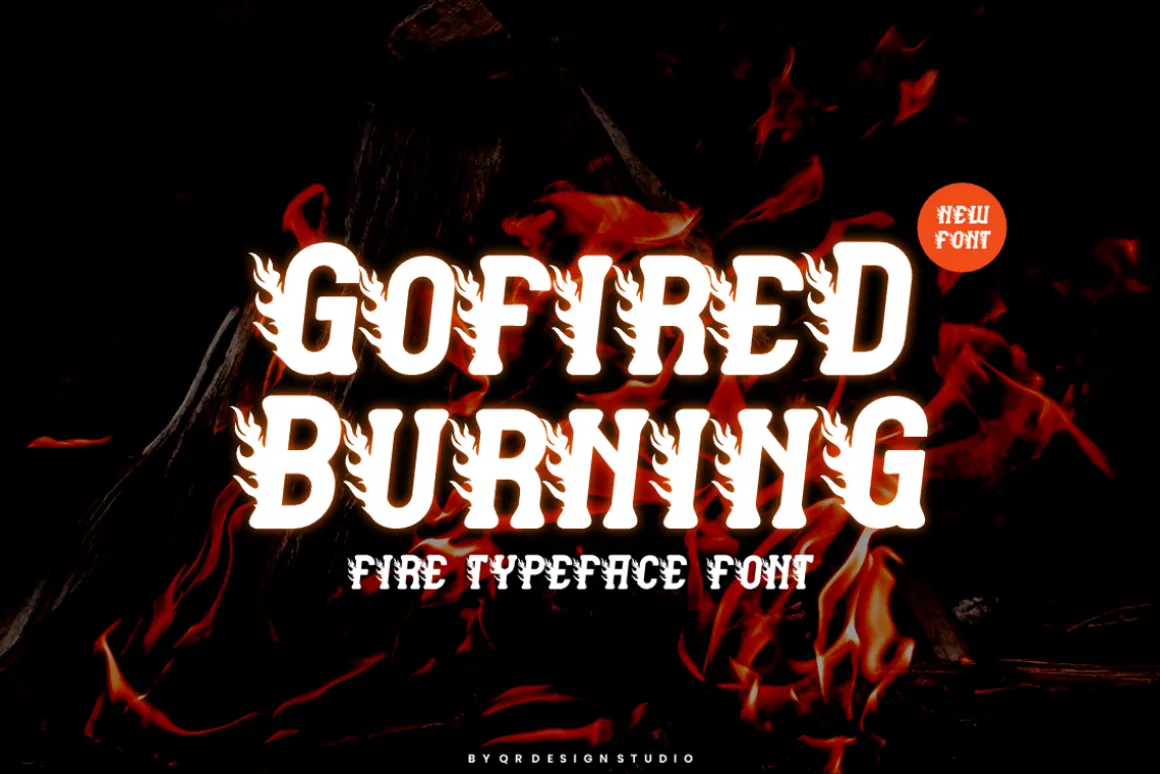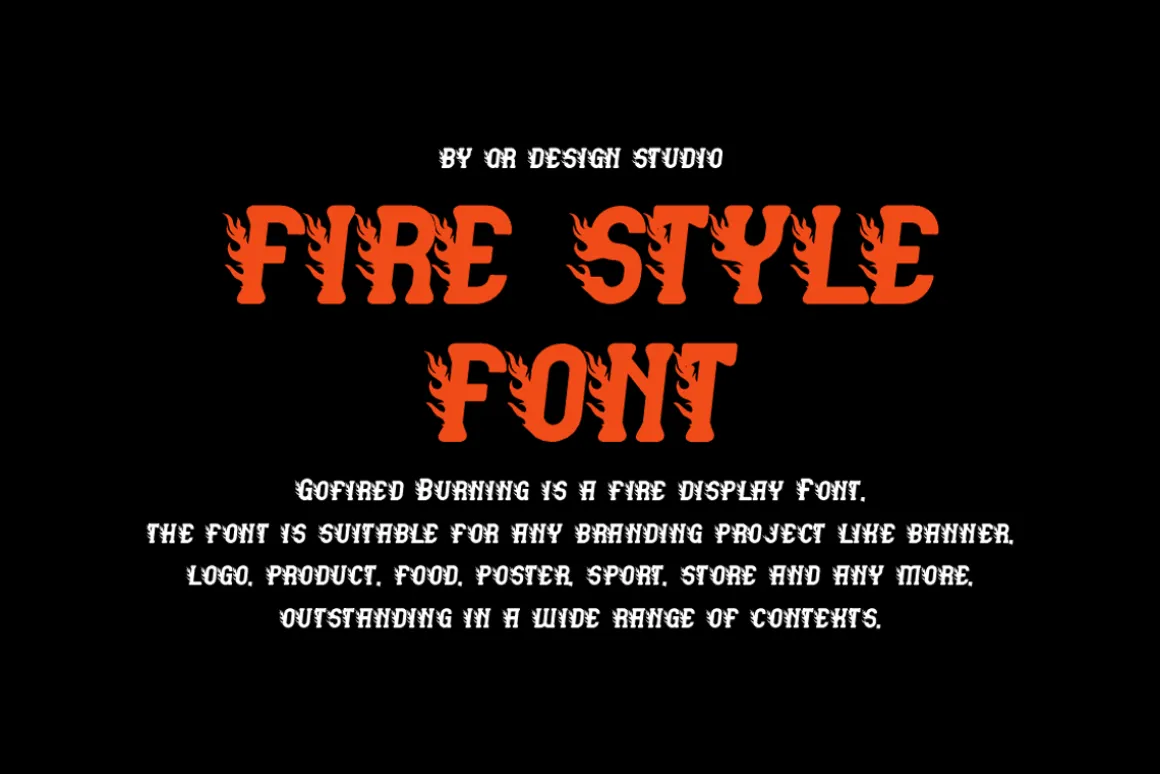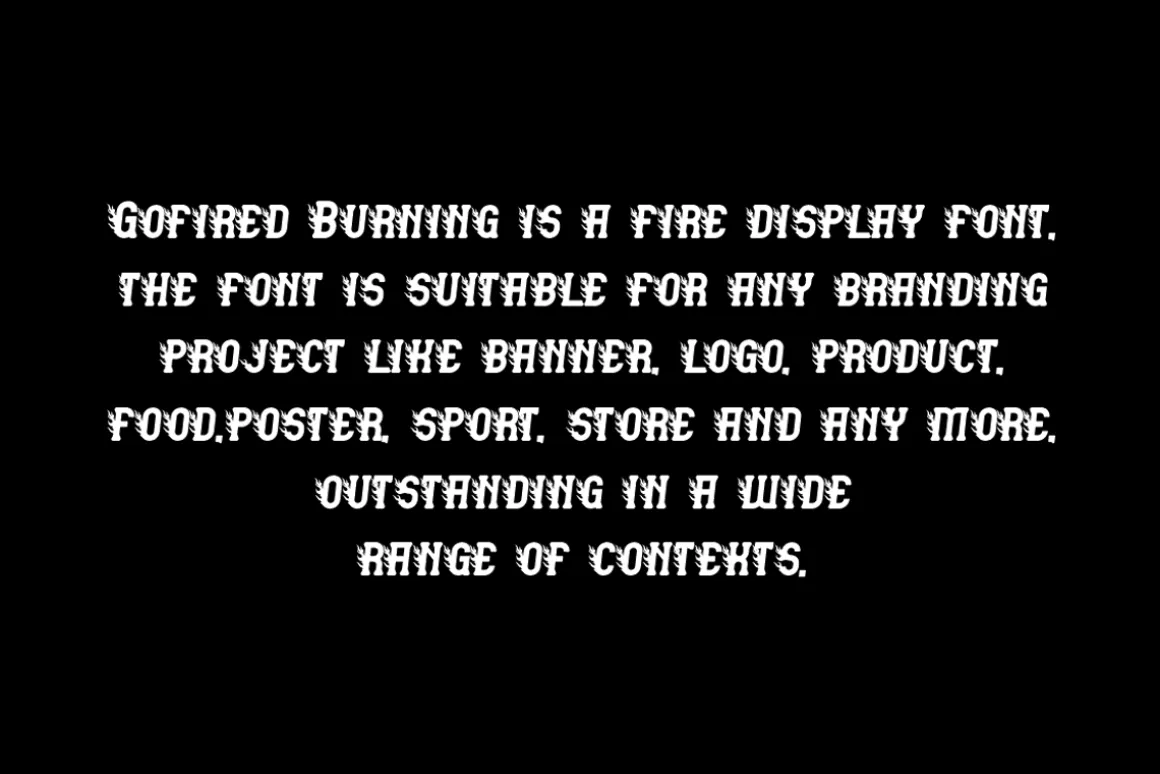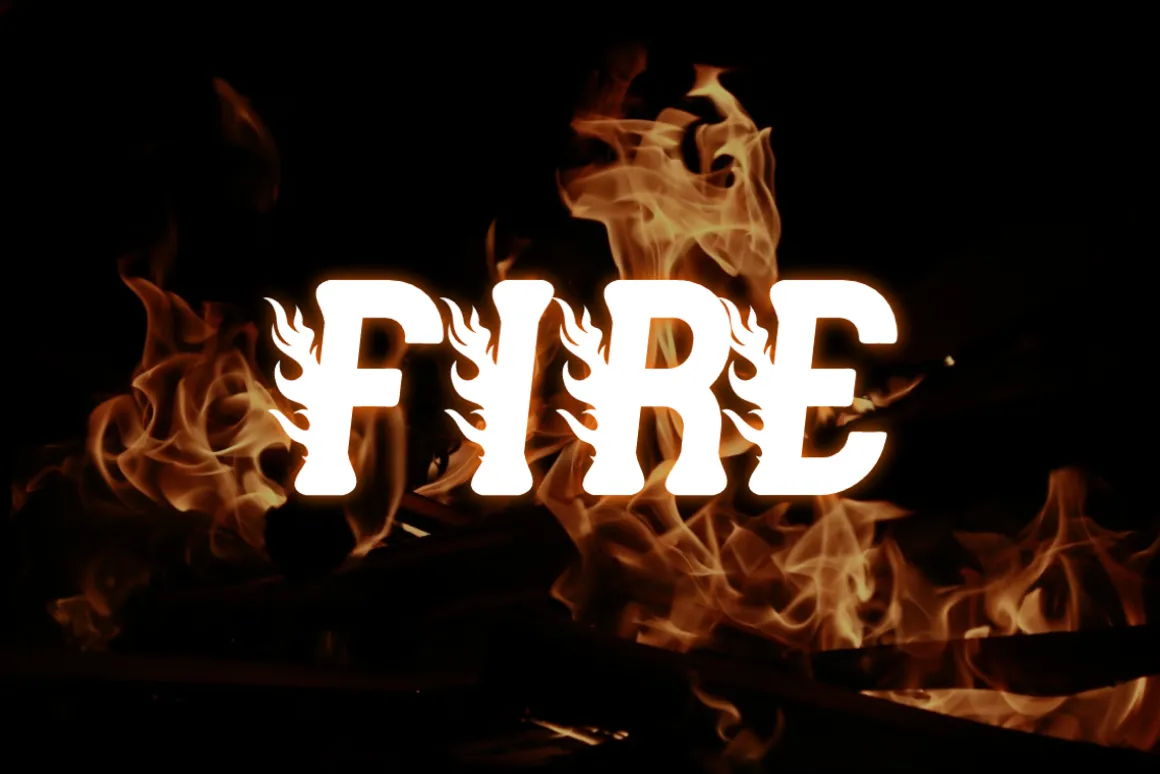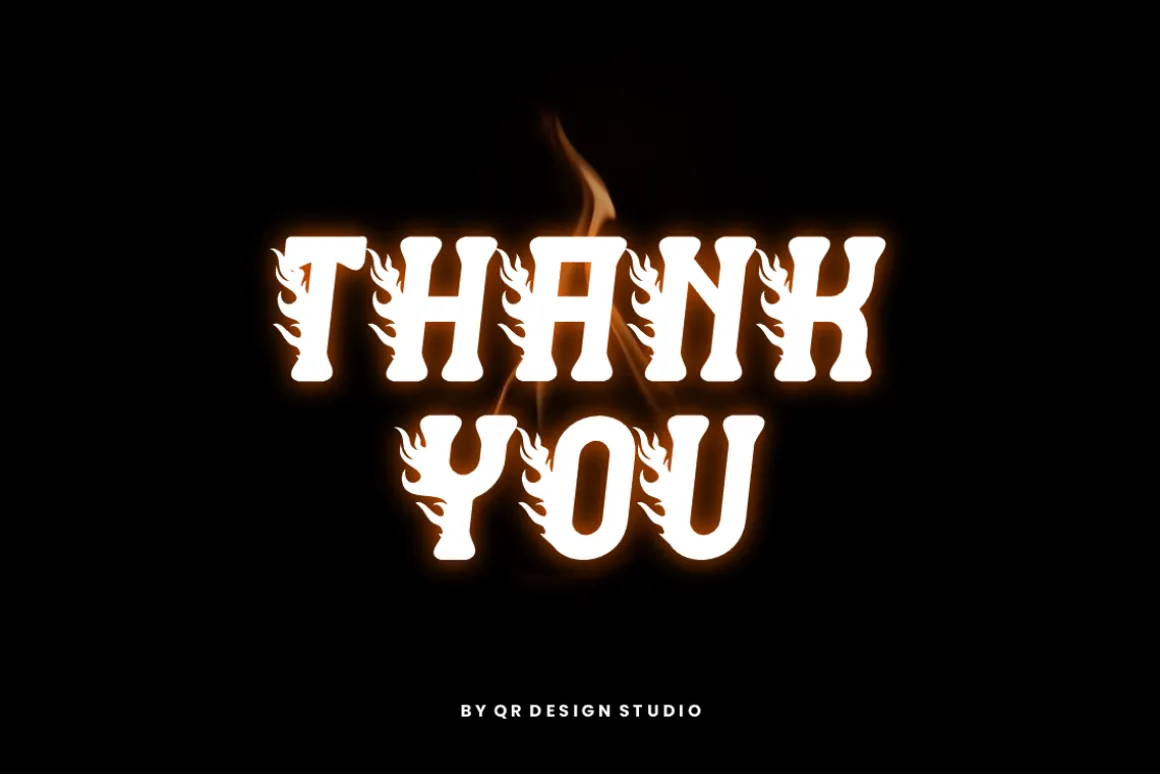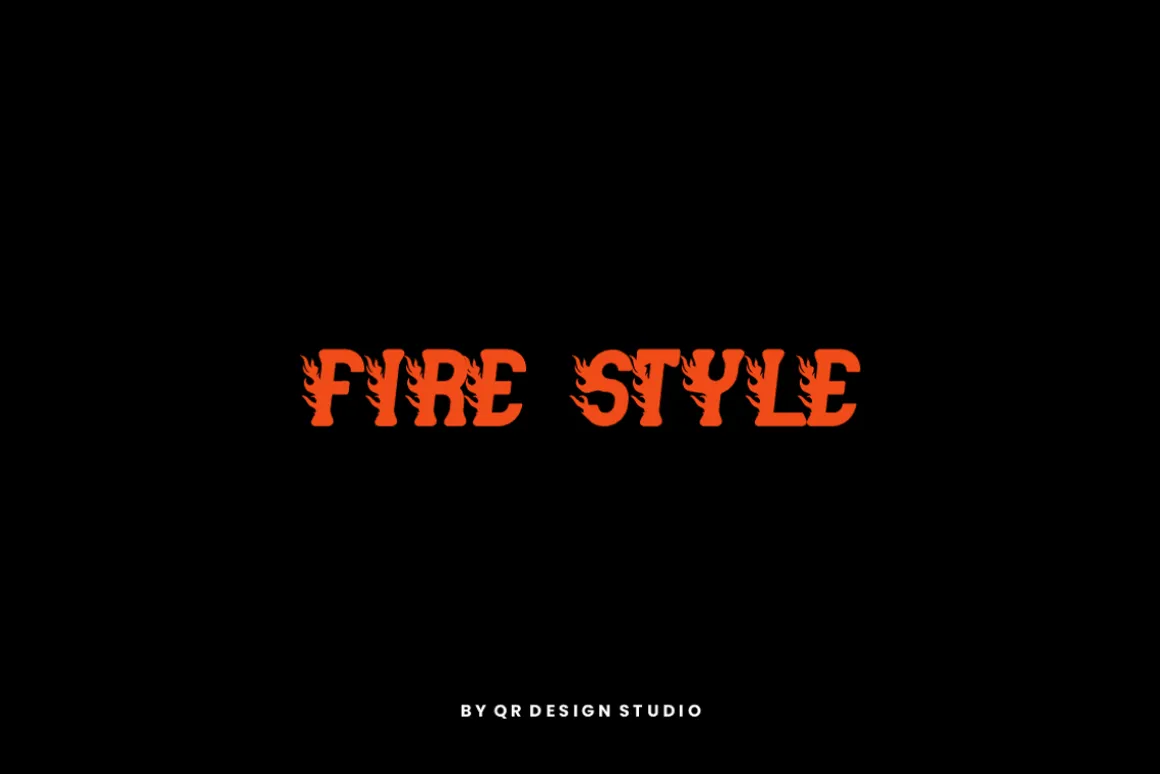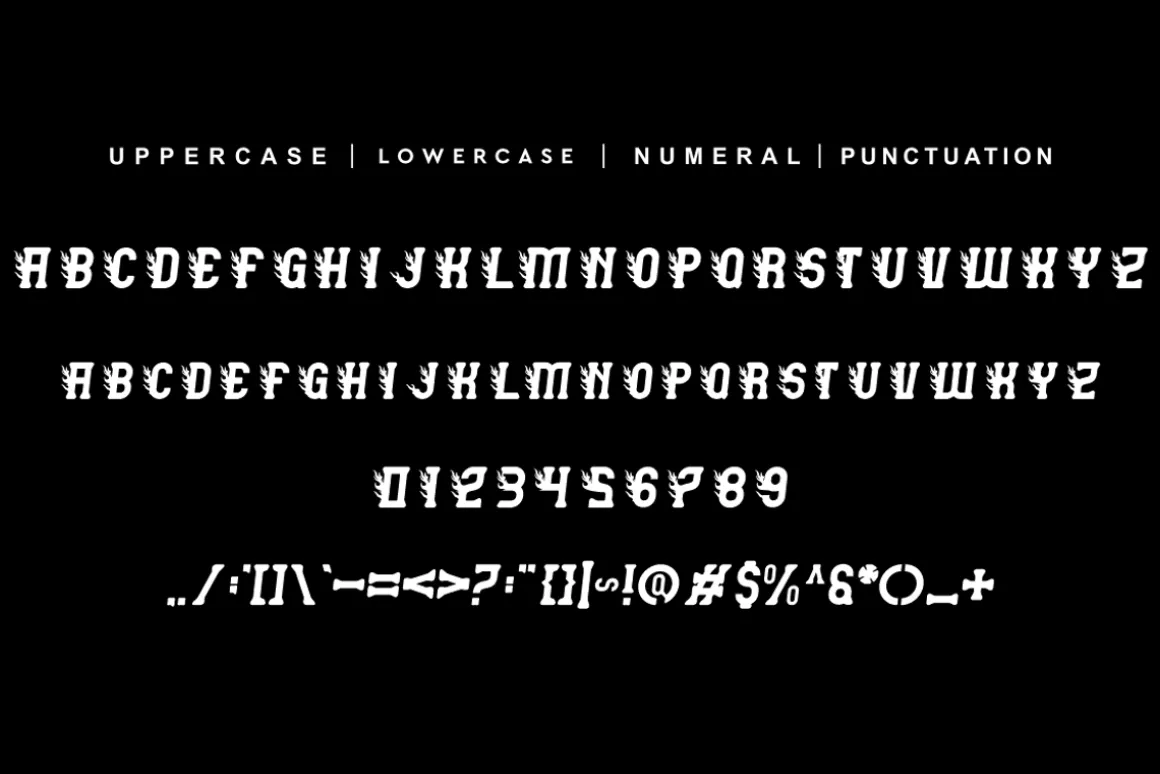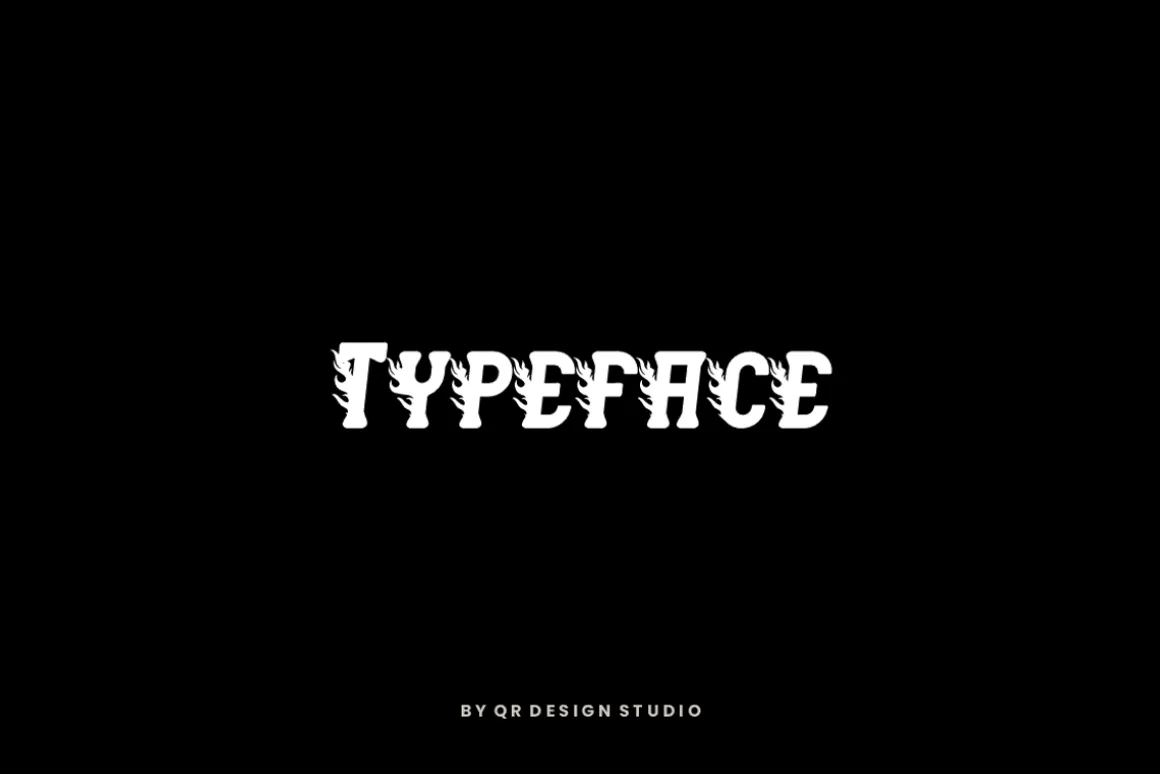
Gofired Burning Font is a modern and authentic display font.The font is suitable for any branding project like poster, logo, sport, and many more.Outstanding in a wide range of contexts.